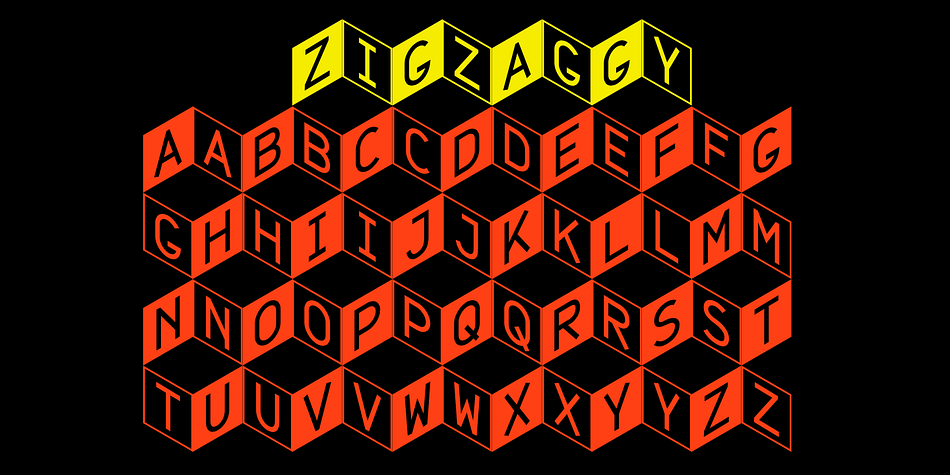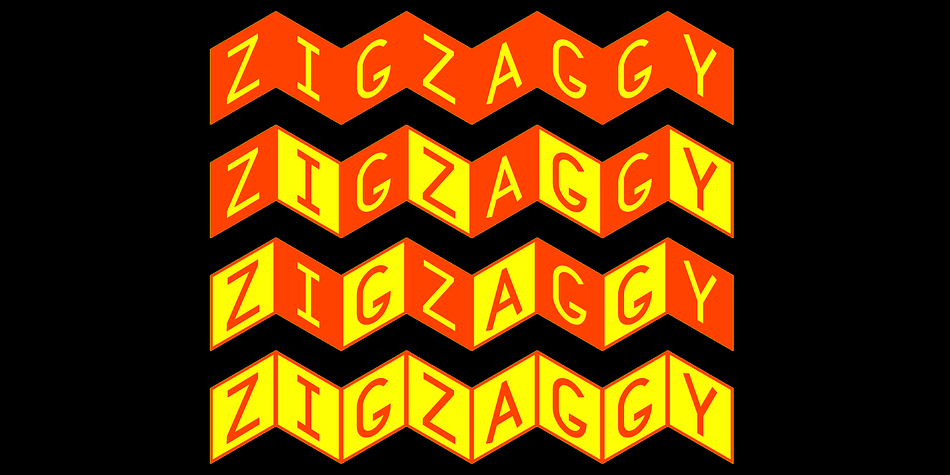
Zigzaggy
Designed by Robert Schenk, Zigzaggy is a novelty font family. This typeface has four styles and was published by Ingrimayne Type.
ZigZaggy alternates two letter sets on flags that are formed from trisecting a regular hexagon. Each flag is a diamond-shaped parallelogram with vertices having 60º and 120º angels. In applications that support the OpenType feature contextual alternatives (calt), the two sets of letters are automatically alternated.
The Zigzaggy family has four styles: black letters on a white background, white letters on a black background, and two styles that alternate white and black backgrounds. The four styles also can be used in layers to produce colorful banners. The ~ _ µ and ß keys have frames or backgrounds that can also be used in layers or to replace spaces. The tiling pattern of text created by Zigzaggy makes it attention-grabbing and appropriate for signage, posters, advertising, and other uses where eye-catching text is desired.